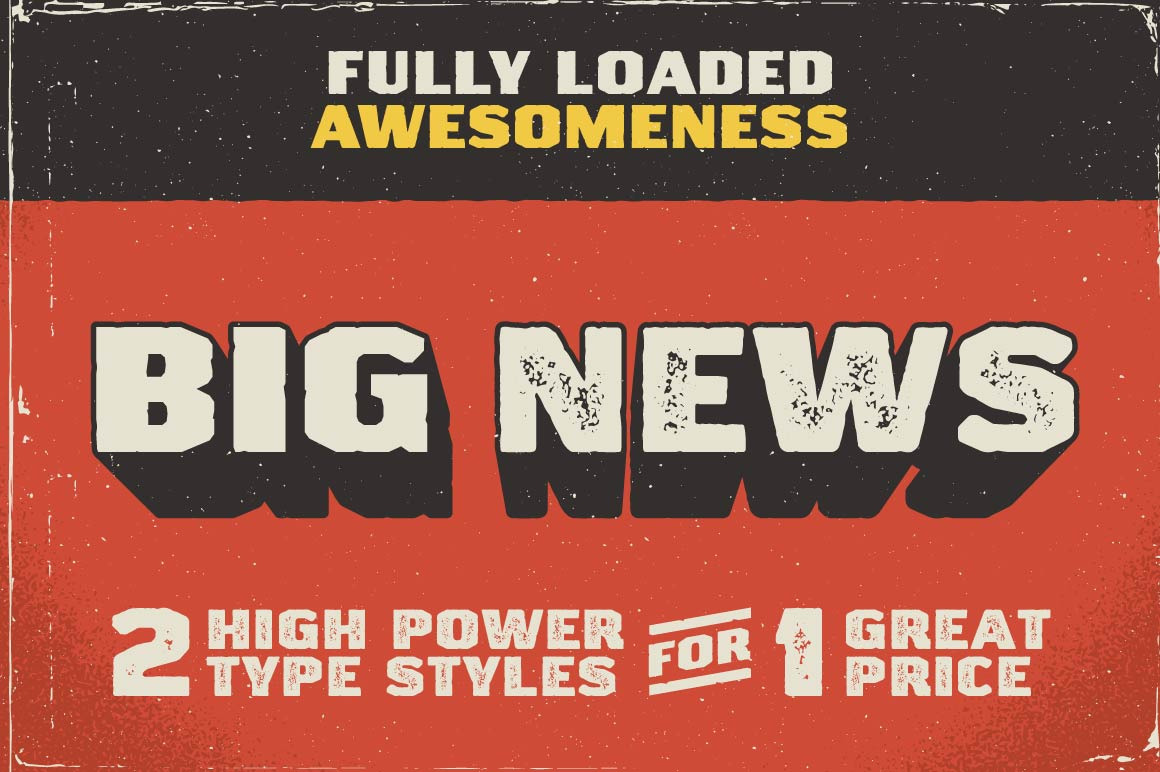
Big News I & II Font
Looking for some type that has a strong and rugged voice? Here it is. Big News features 2 options—clean-ish and distressed. This type can take a beating and keep on working for you. It even has the scars to prove it. For just a measly $30 you can start smacking people's eyeballs around with your designs. "Hey you! Look at me, meatbag!" is what your designs will be saying if you use Big News. Come on. Do this. You won't regret it.
Upon sending my latest design "Menu_Interior_CMYK_Revision2-Final-V2" to my needy client, I was hit with the dreaded 3-word request no designer would wish on their worst enemy. The request to "Make it Pop" has sent an unplaceable, vague chill down the greatest of designers. Resisting the urge to respond with a very clear and distinct suggestion to the 'marketing manager' of who I'd like to 'pop', I suddenly remembered I recently downloaded "Big News I & II". In just a few clicks, I replaced my typeface with Big News, and let me tell you - things were poppin'. My design finally... 'popped'. My client's eye's... 'popped'. The lightly-buttered cornstalk outside my window... 'popped'. The red balloon housing my local centuries-old, child-eating, town-terrorizing clown... 'popped'. My Dear Old Pop's heart, upon hearing all the commotion... well, let's just say, may he now rest in peace. Before he passed however, he asked that I give Big News I & II the 5 star review it deserves.